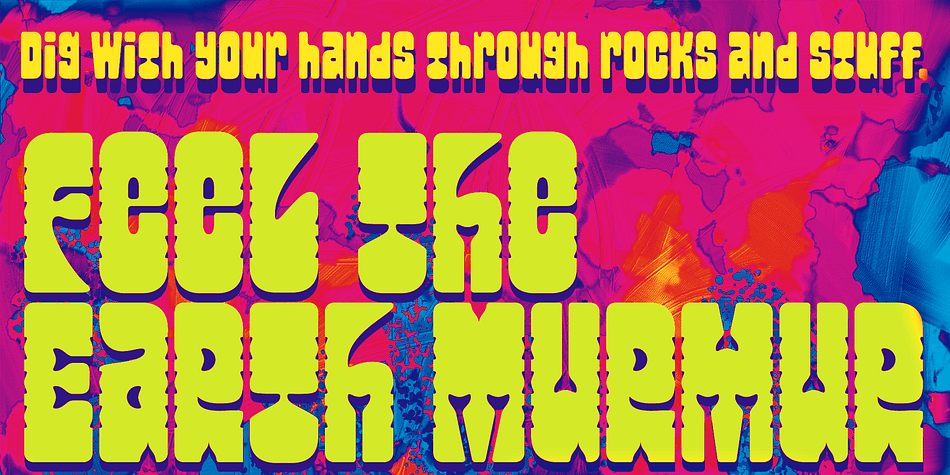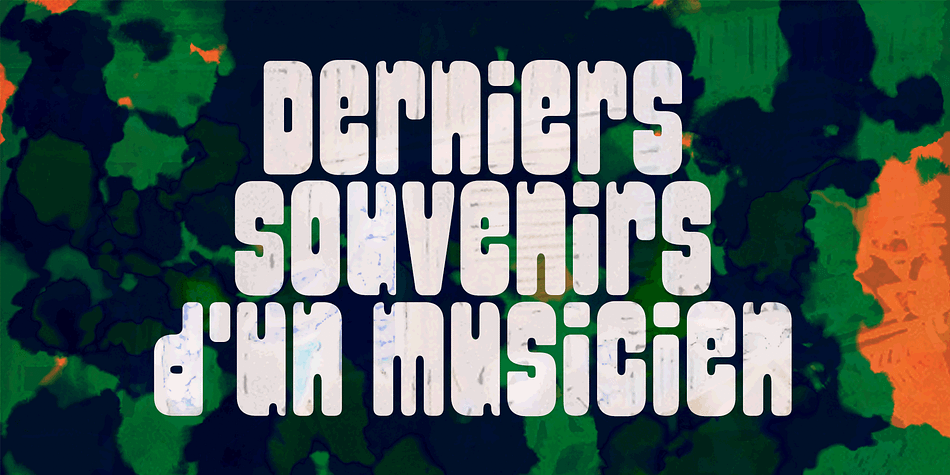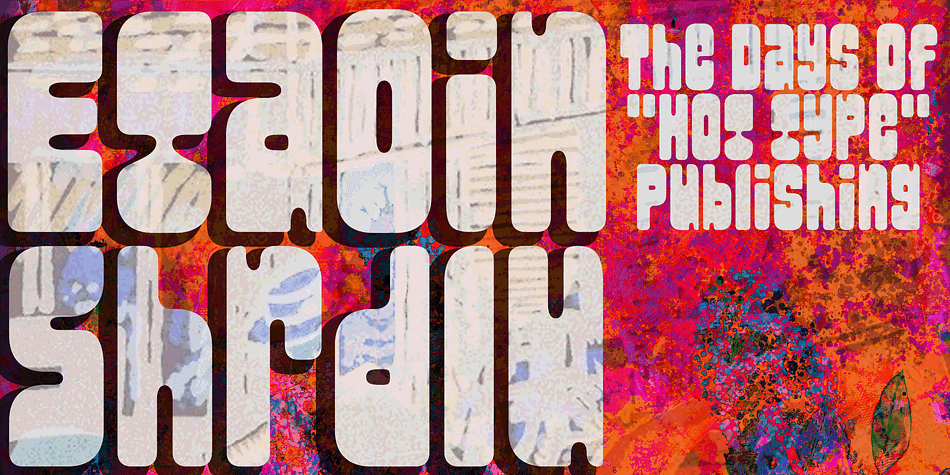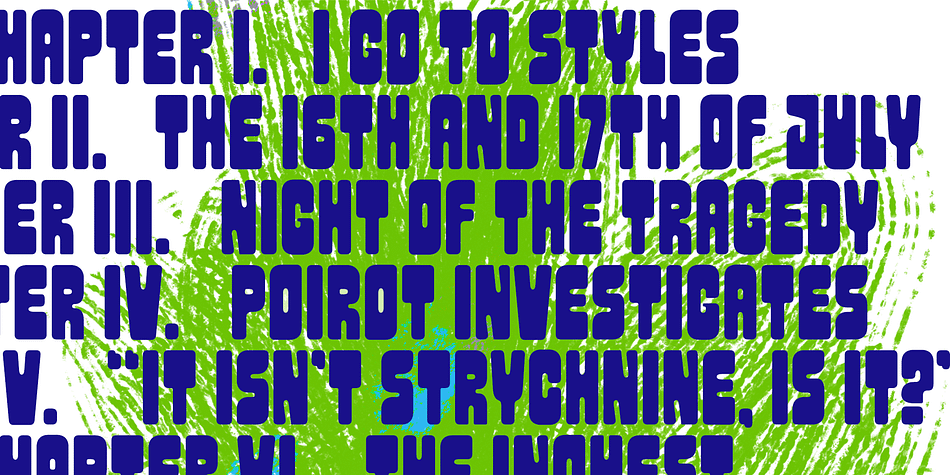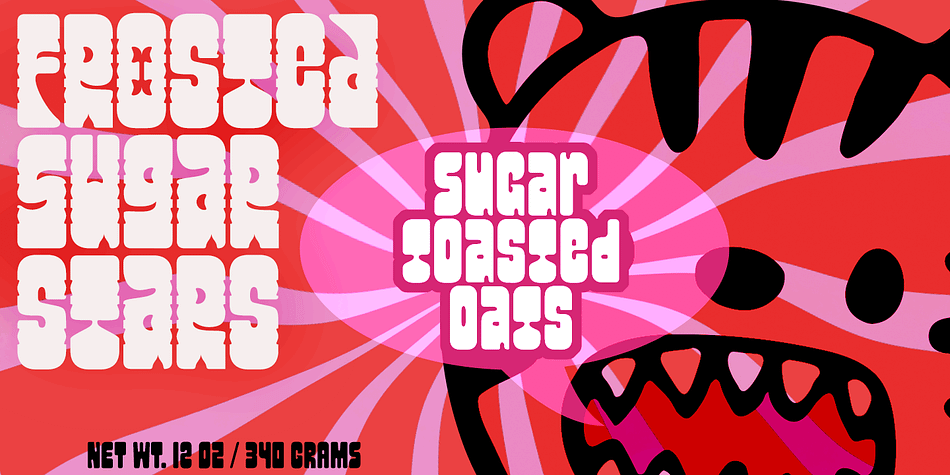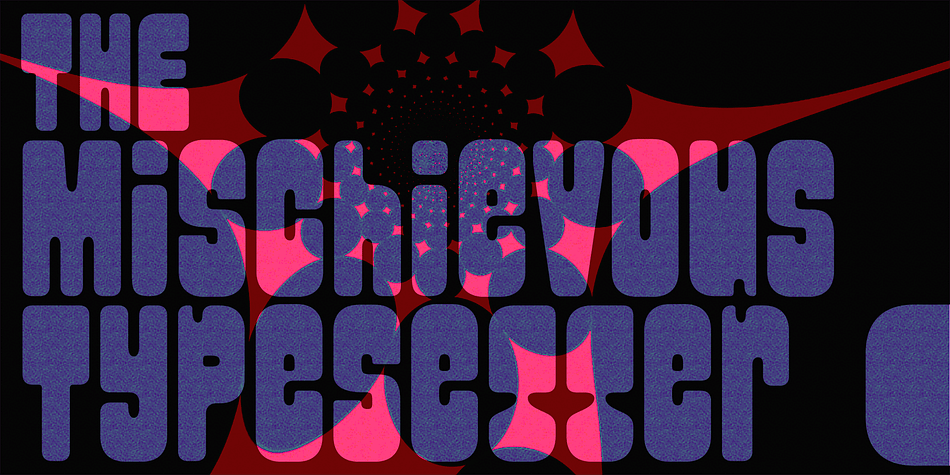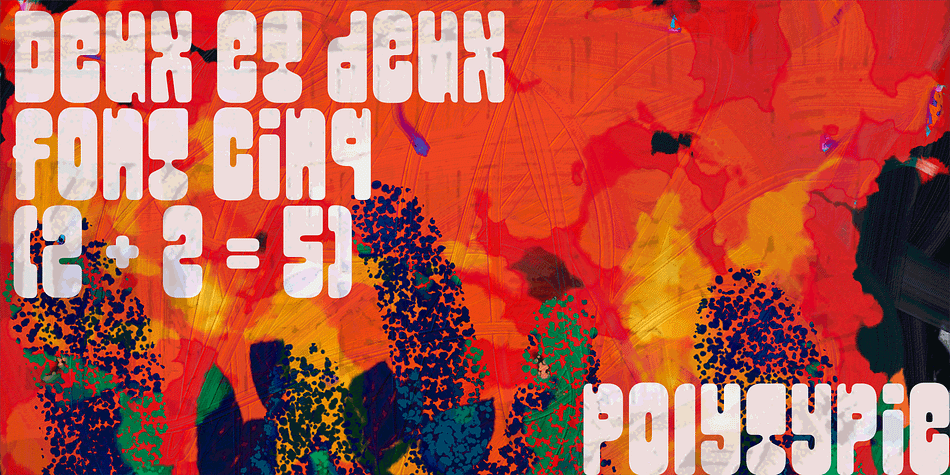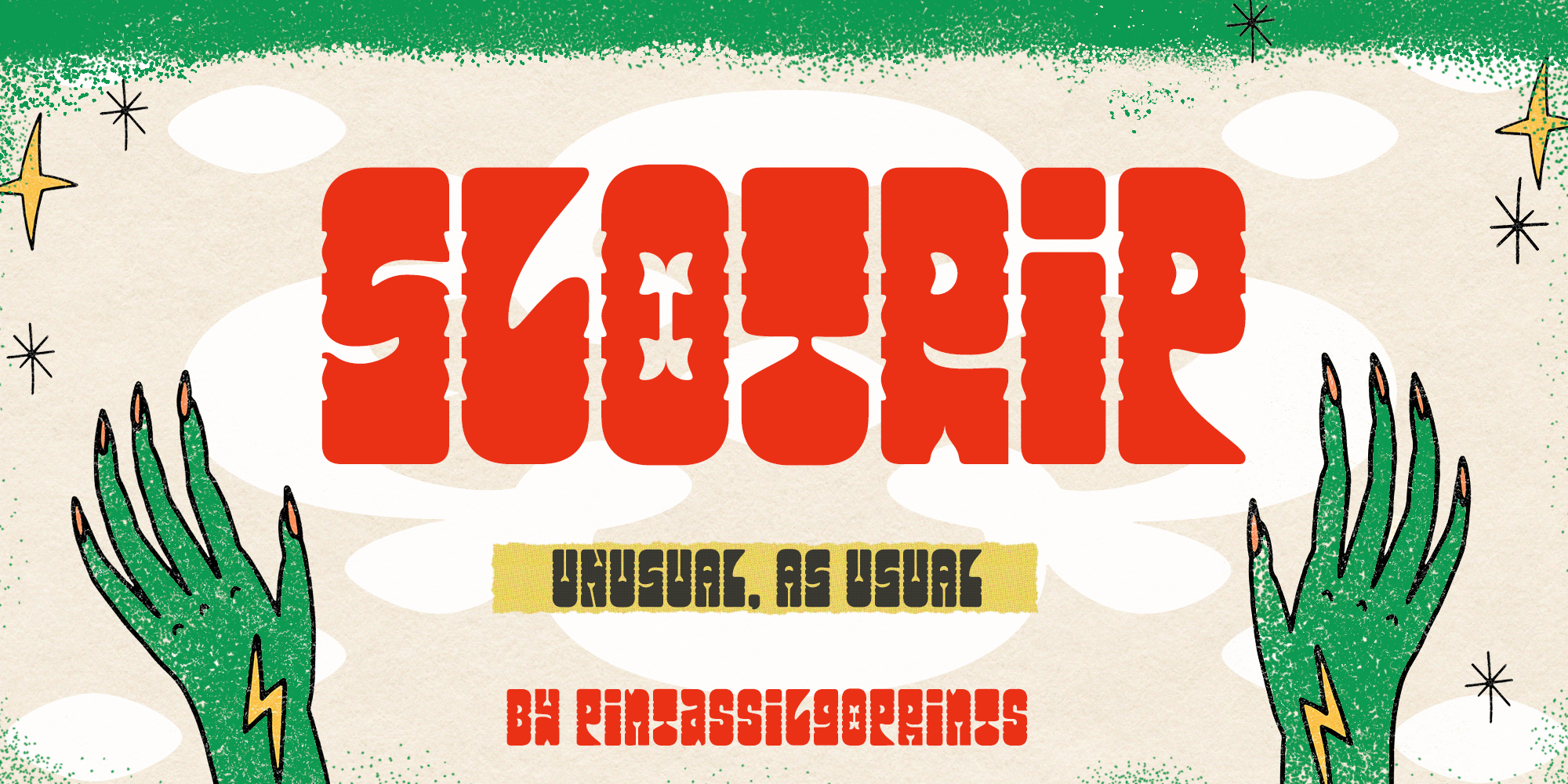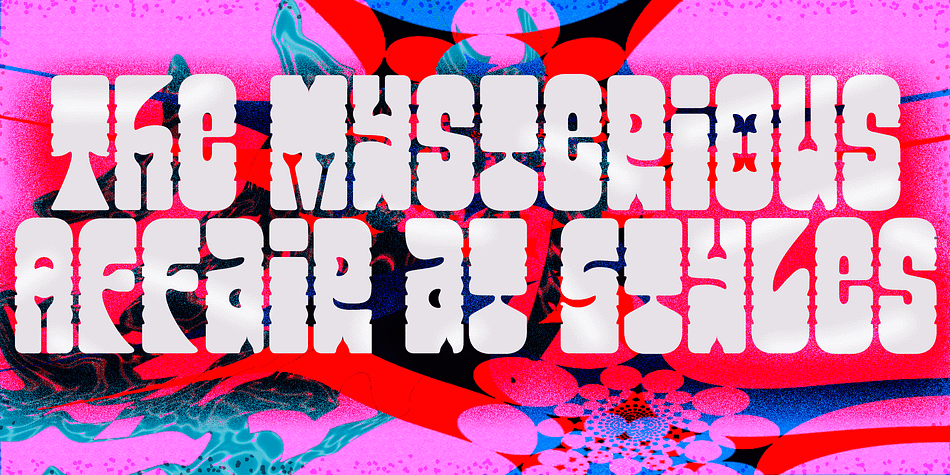
Slotrip
Designed by Ricardo Marcin and Erica Jung, Slotrip is a hand display font family. This typeface has two styles and was published by PintassilgoPrints.
Original and highly decorative, Slotrip family is suited for creative and eye-catching display uses: posters, book covers, packaging, t-shirts, you name it. It won’t go unnoticed.
The family has 2 styles, both are unicase – upper- and lowercase forms have the same height. Stylistic alternates are available for some letters. Broad language coverage? Yes. Both fonts? Absolutely.
Designers Ricardo Marcin, Erica Jung